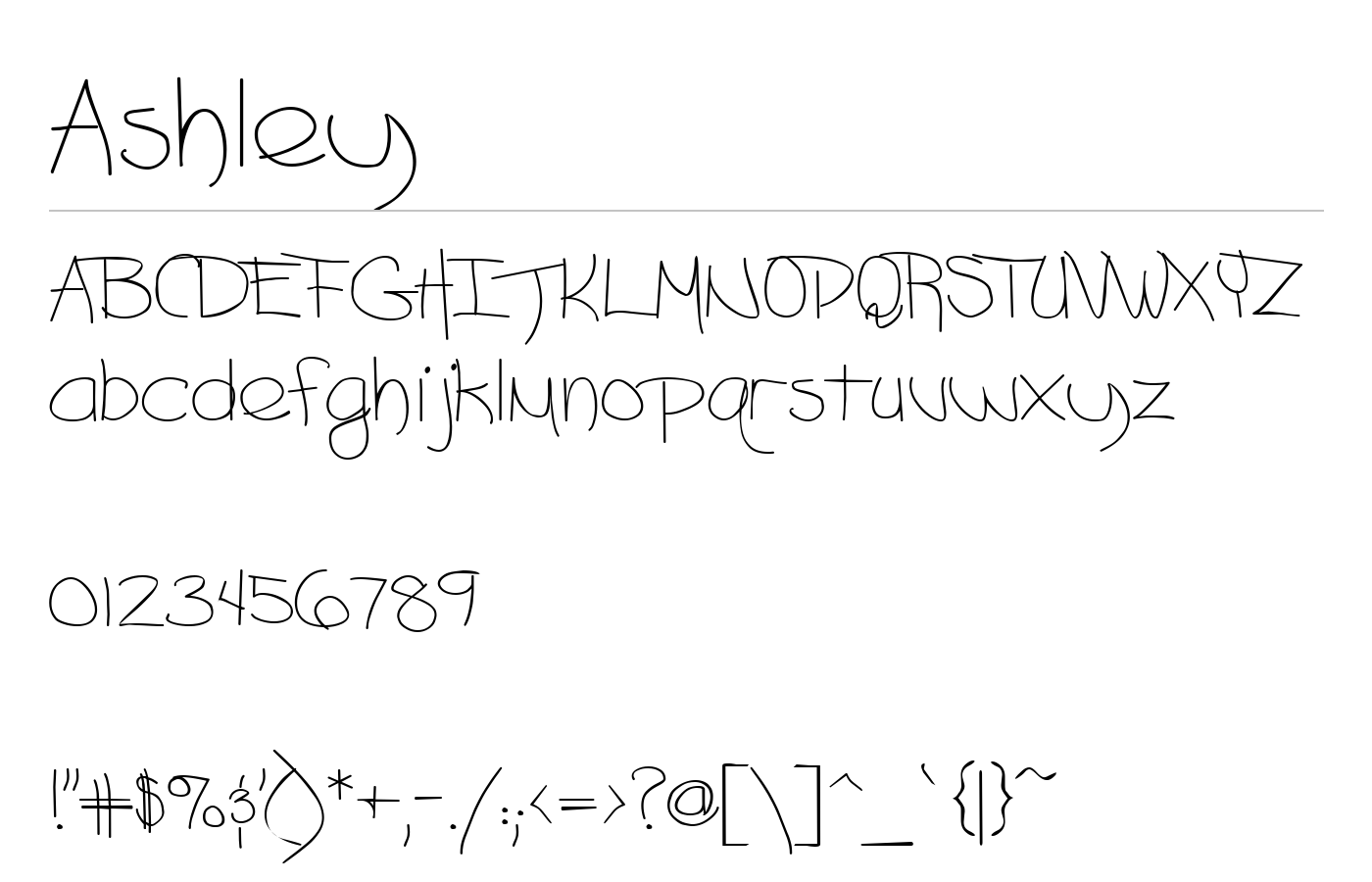
Ashley is a delicate, handwritten sans serif font characterized by its thin, uneven strokes and playful, quirky letterforms that give it a charming, casual feel. With its tall x-height and loosely spaced characters, it works well for informal, creative projects like invitations, greeting cards, or personal branding where a friendly and approachable tone is desired. Its unique style adds personality and warmth, making it a great choice for designs that need a human touch and a bit of whimsy.
Ashley Font
About Ashley Font